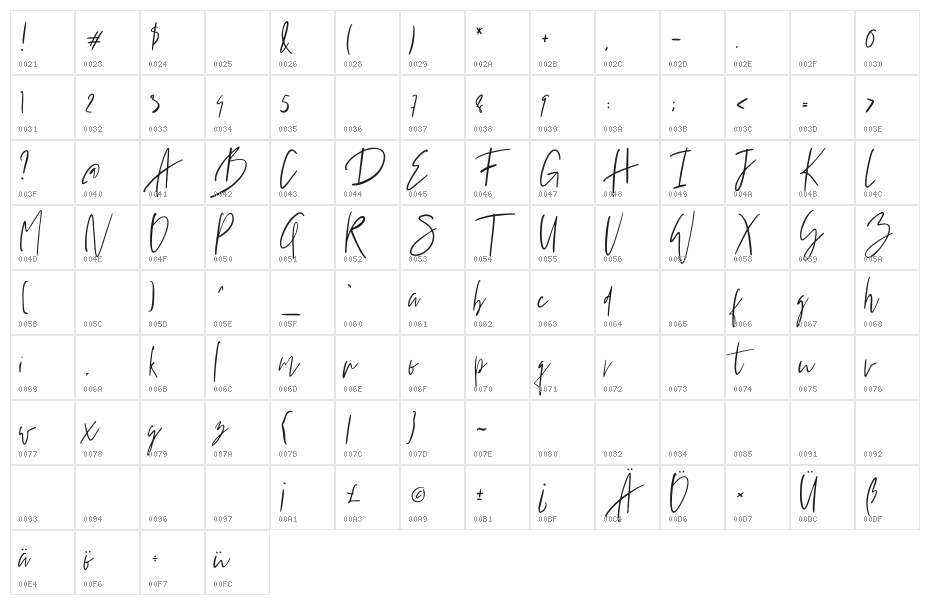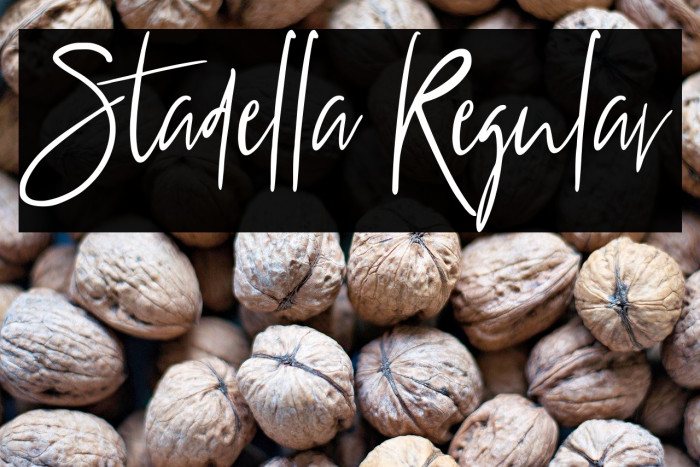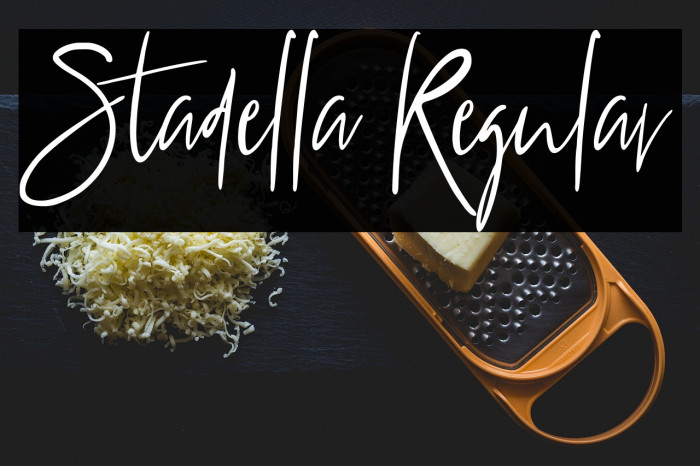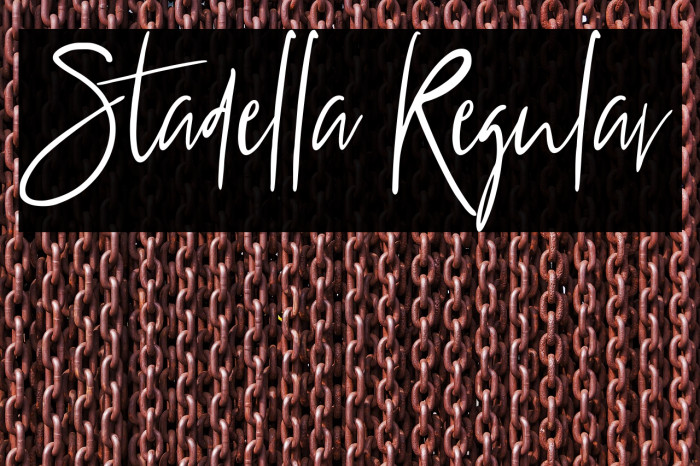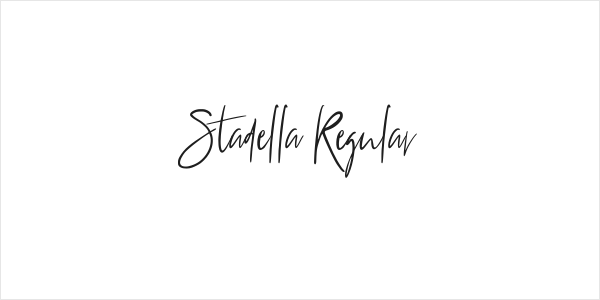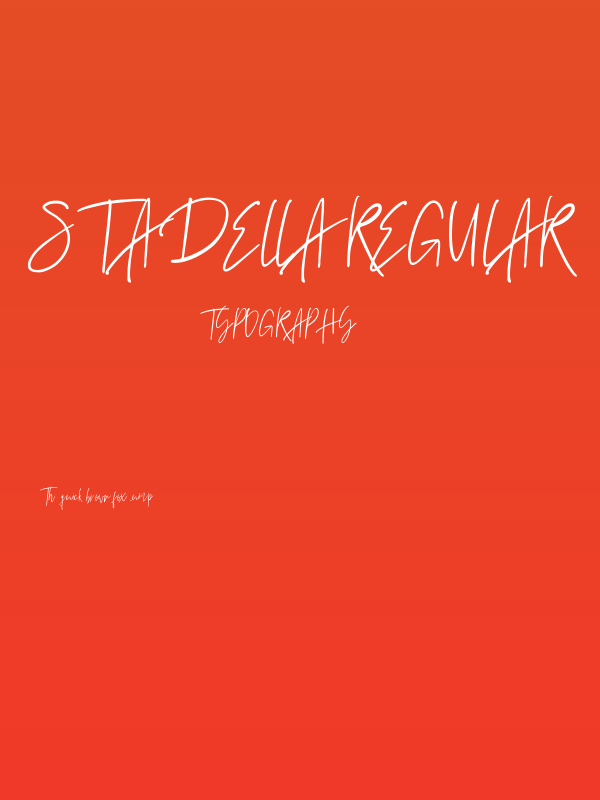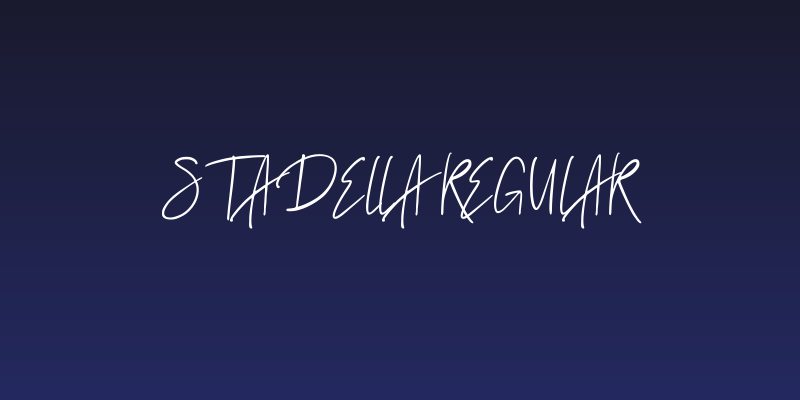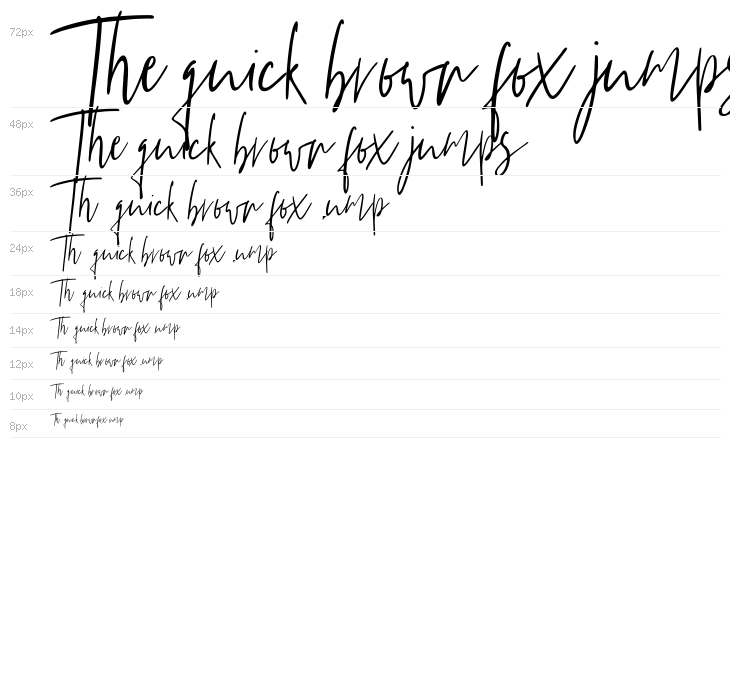
Stadella Regular Font
This font features a dynamic and energetic handwritten style, characterized by its fluid and irregular strokes. The letters are slightly slanted, giving it a casual and spontaneous appearance. The uppercase and lowercase letters maintain a consistent flow, while the numbers and special characters complement the overall aesthetic. The font's playful nature makes it suitable for projects that require a personal touch or a sense of informality. Its unique style can add character and individuality to any design.
A lively handwritten font with fluid, irregular strokes and a casual slant.
- Proposed Projects: Ideal for greeting cards, personal branding, social media graphics, and creative invitations.
- Overall Style: Casual
- Use Case: Logos, Invitations, Social Media Graphics